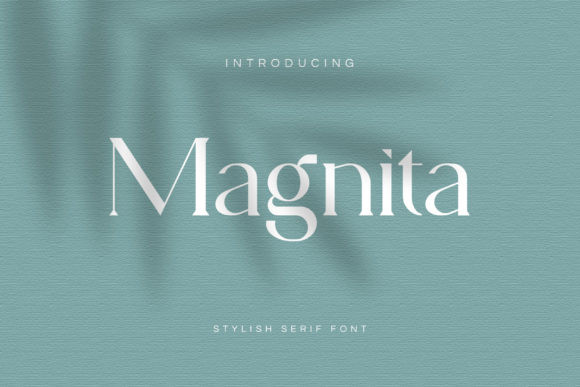
Magnita Font
Magnita is a clean and timeless serif font with edgy details. This unique font feels bold, yet familiar, and will turn any design idea into a true standout.